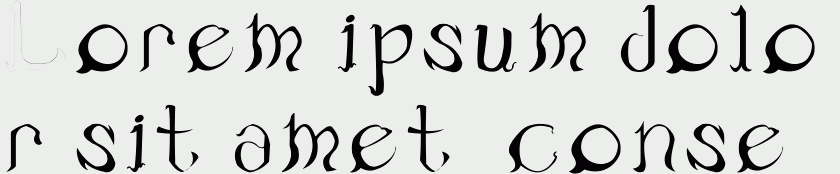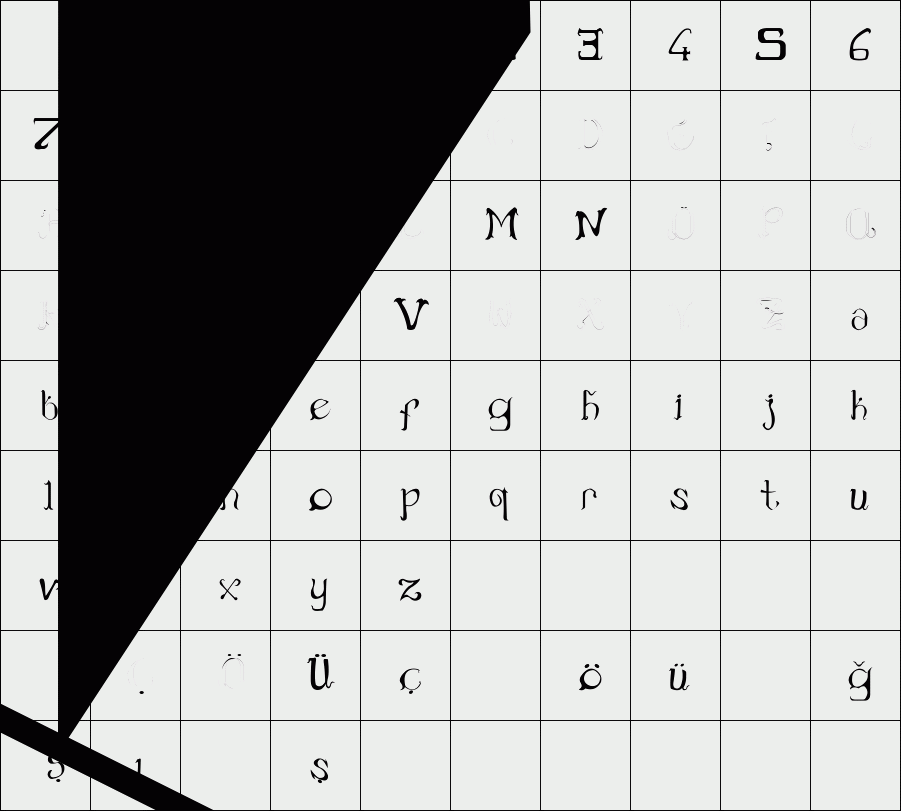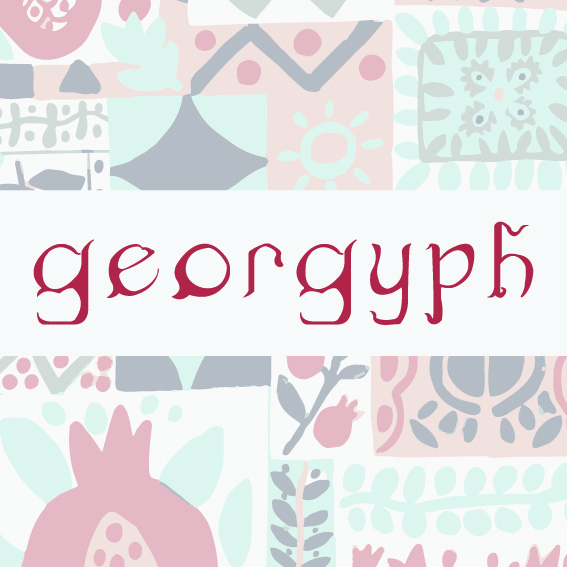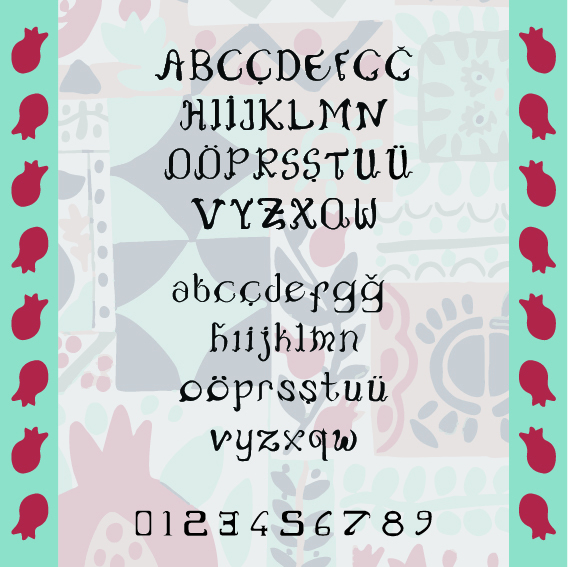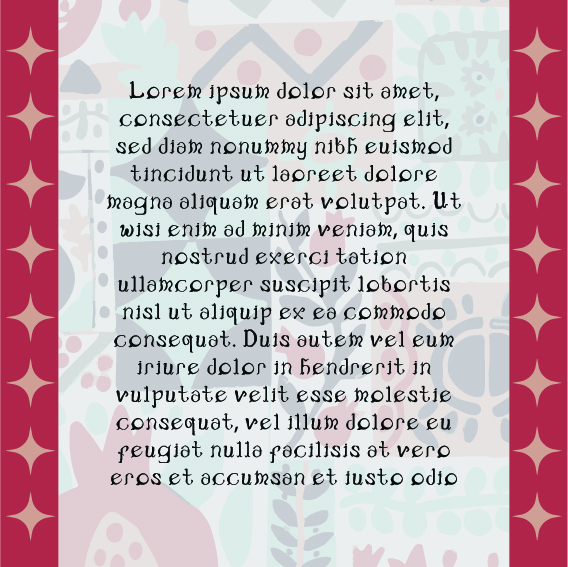
Georgyph
A hybrid display typeface inspired by the visual language of the Georgian script and reconstructed through the Latin alphabet. Georglyph explores the intersection of two writing systems, creating letterforms that are recognizable yet unfamiliar, expressive yet functional.